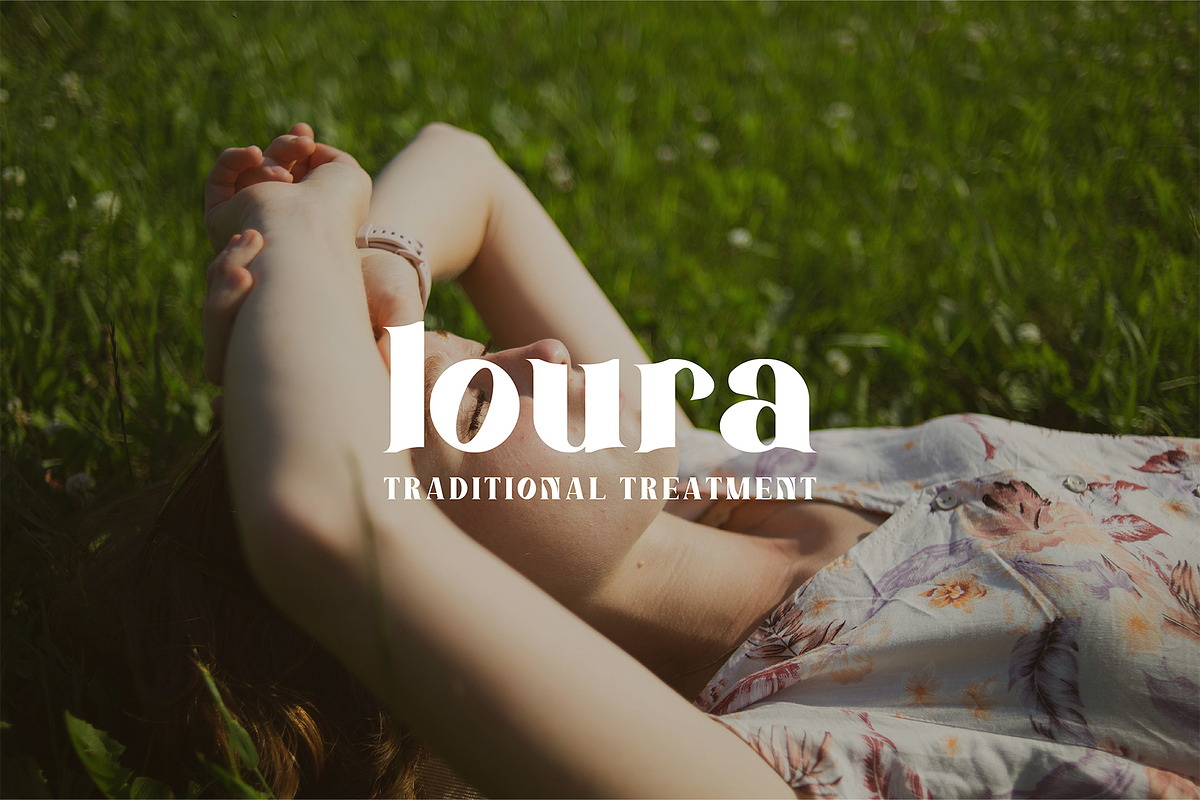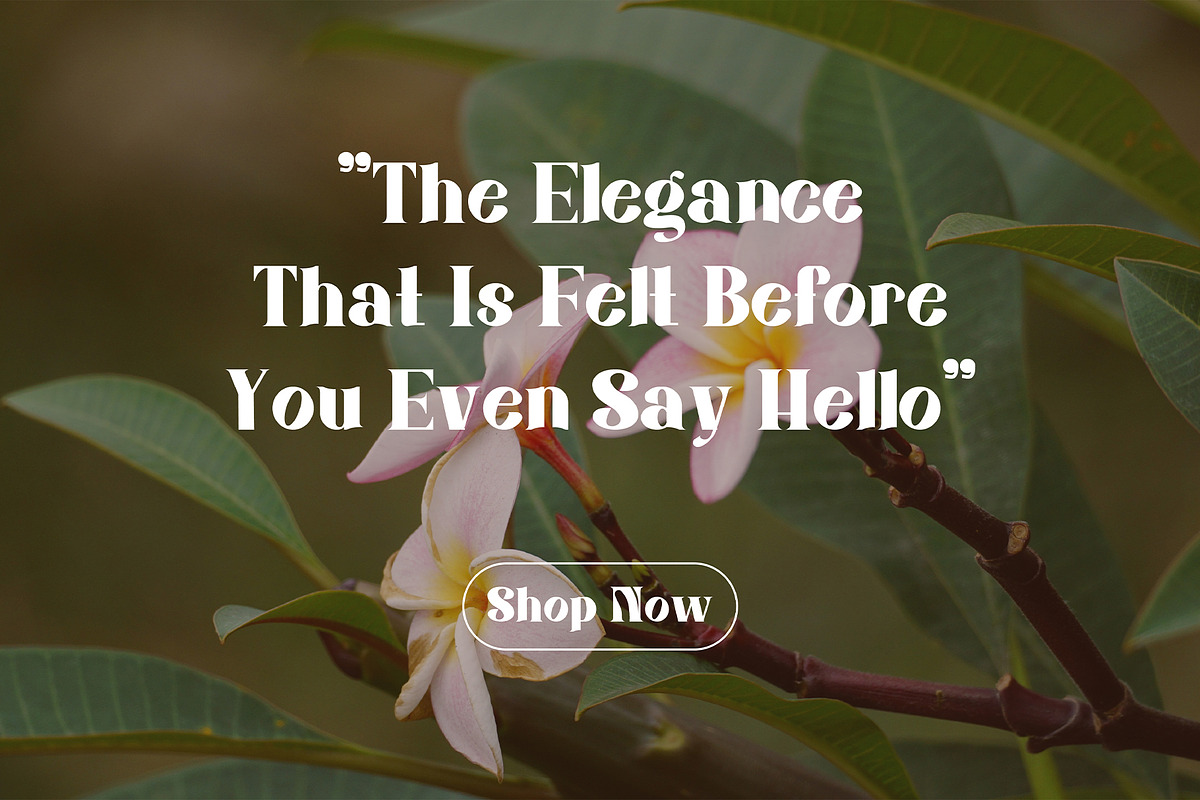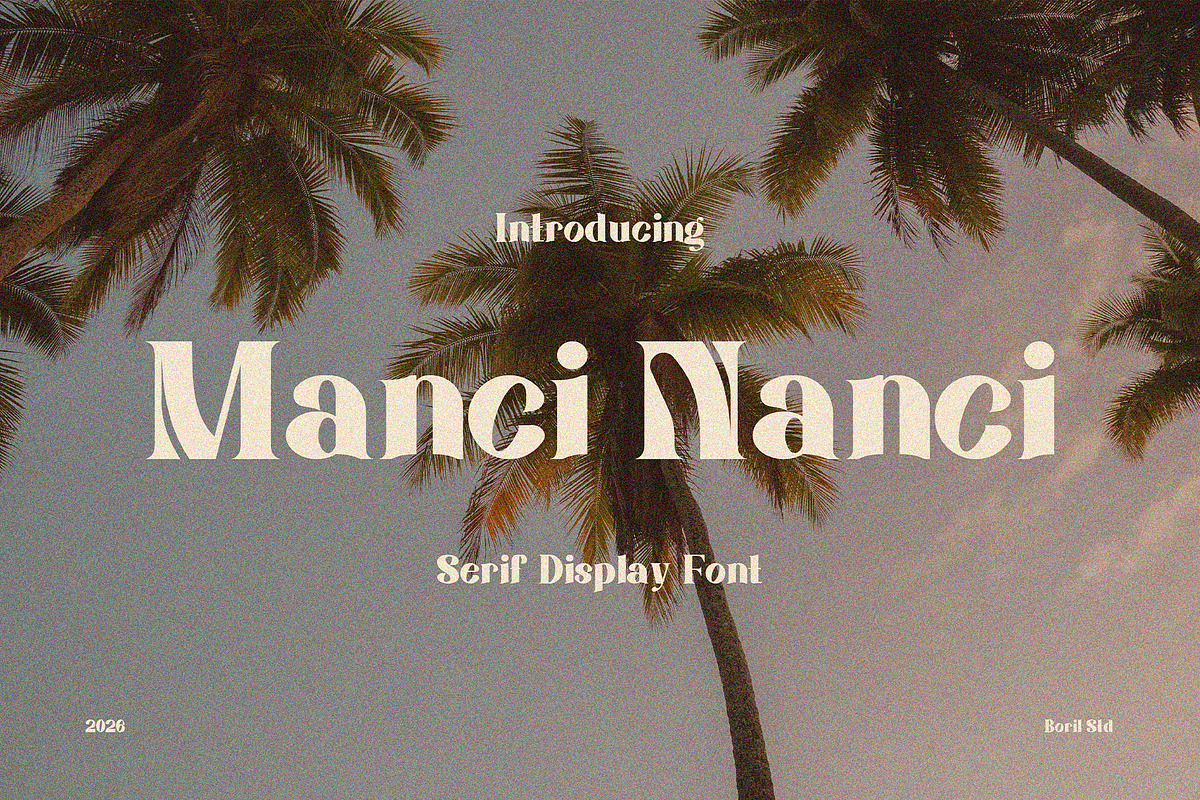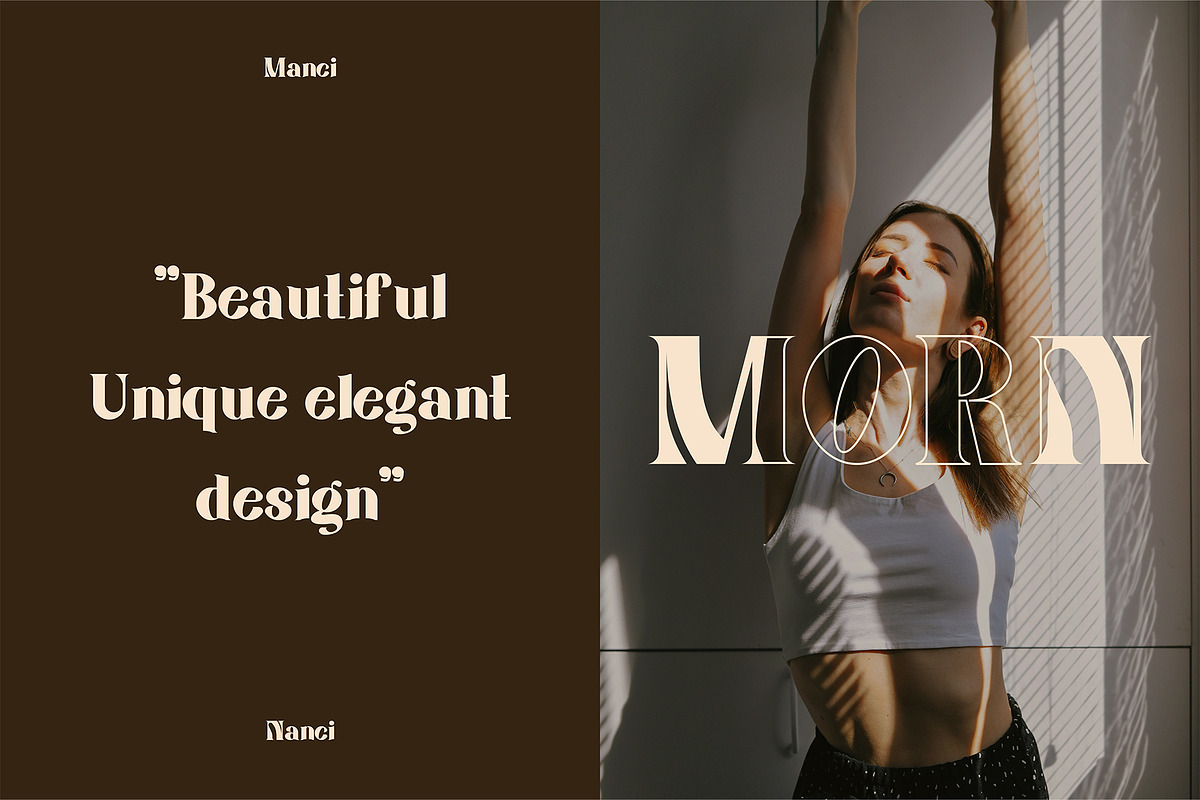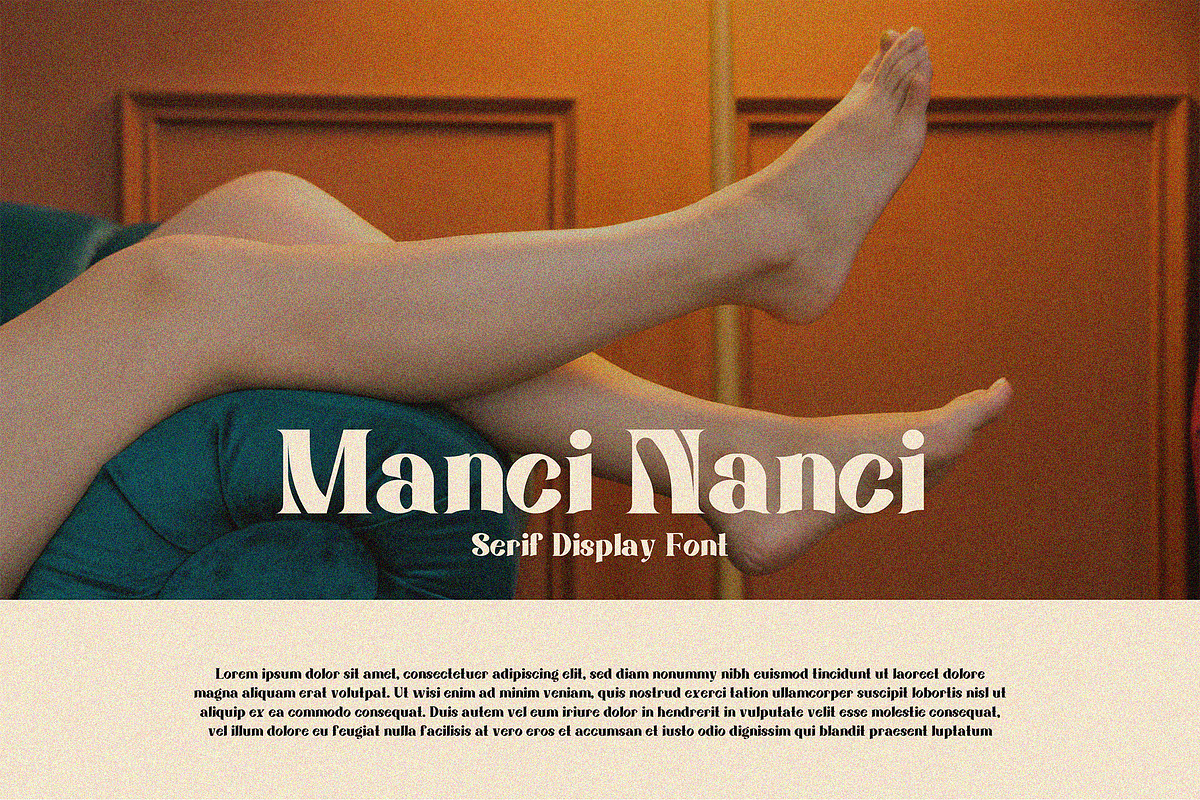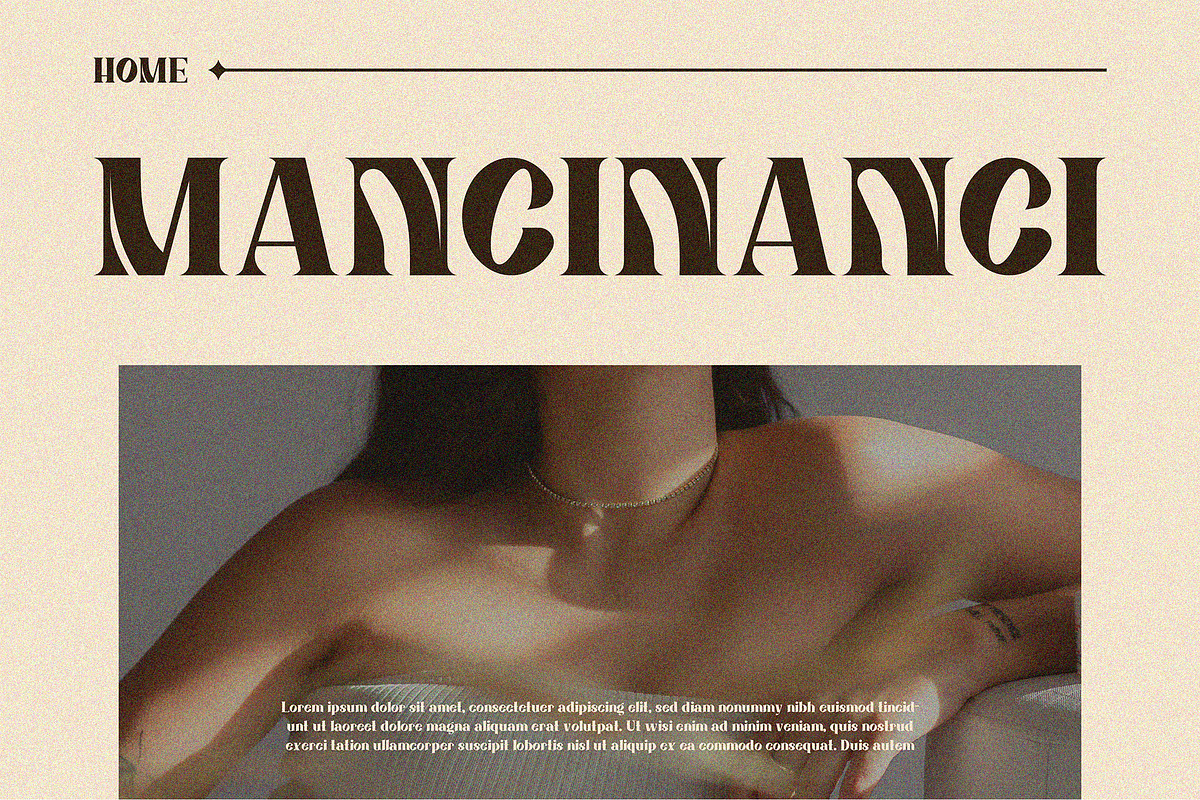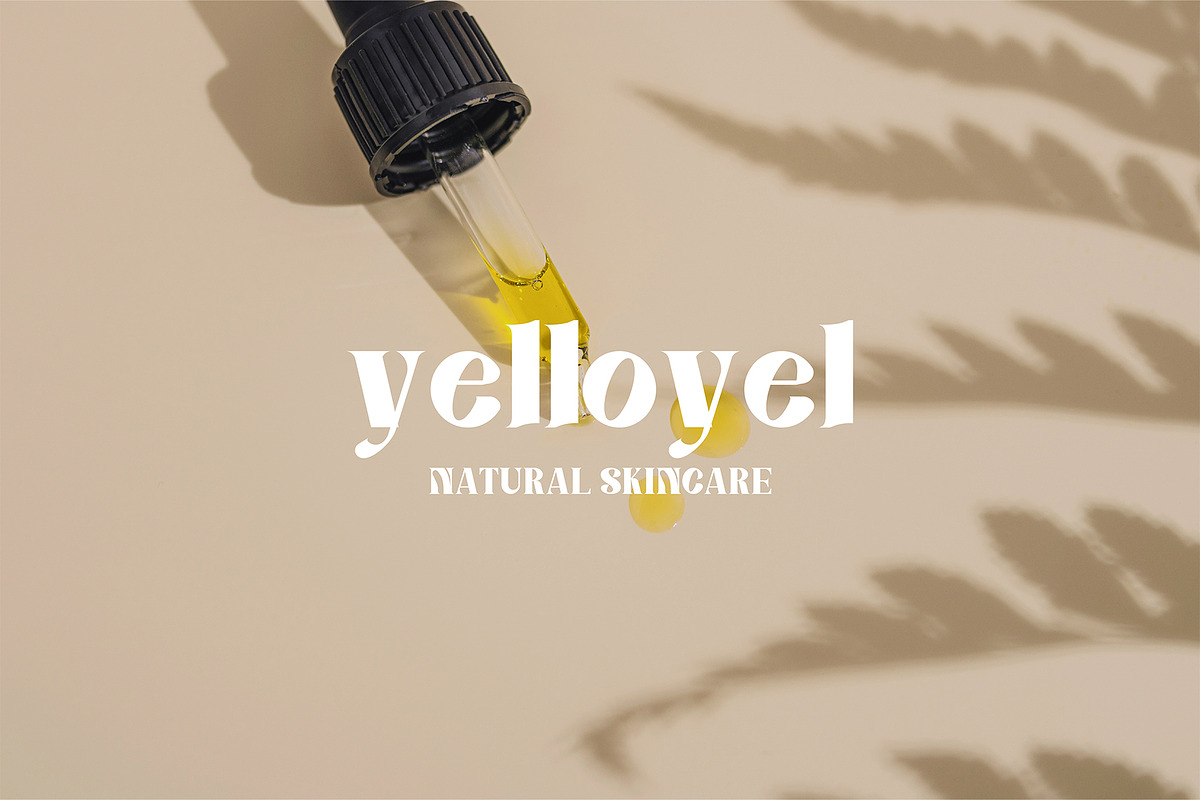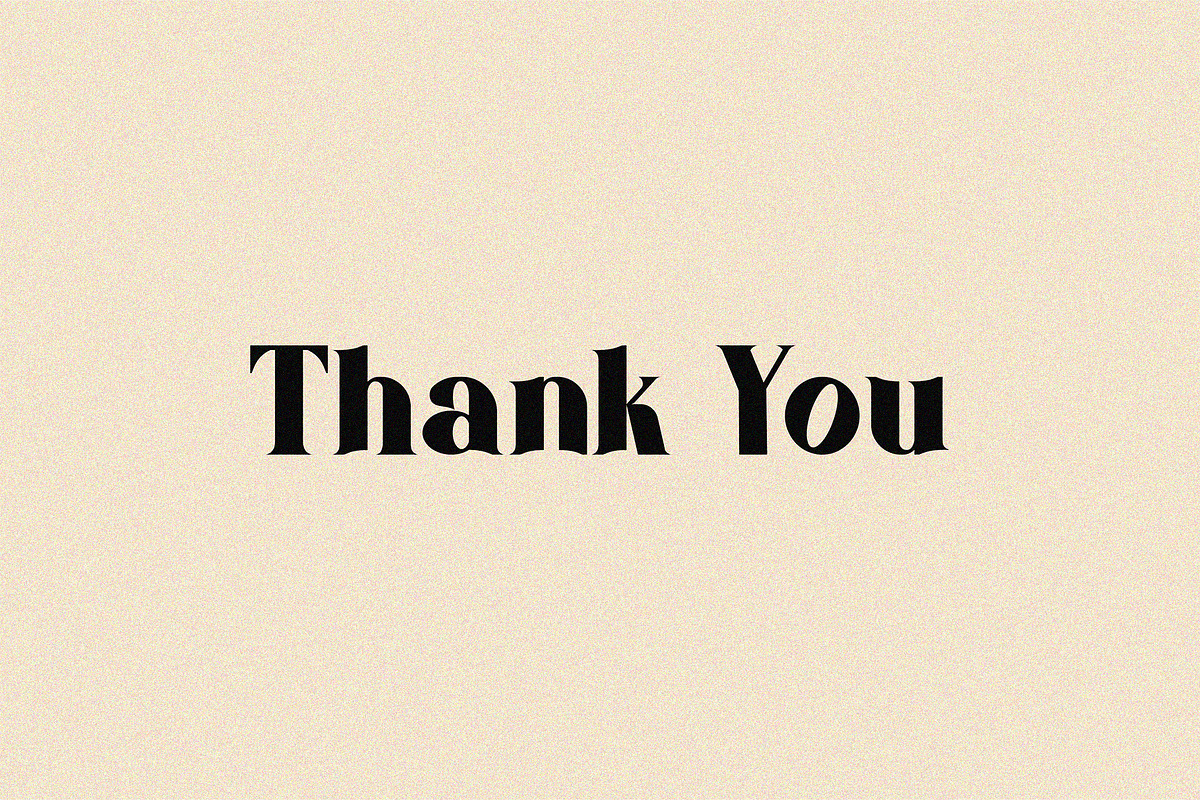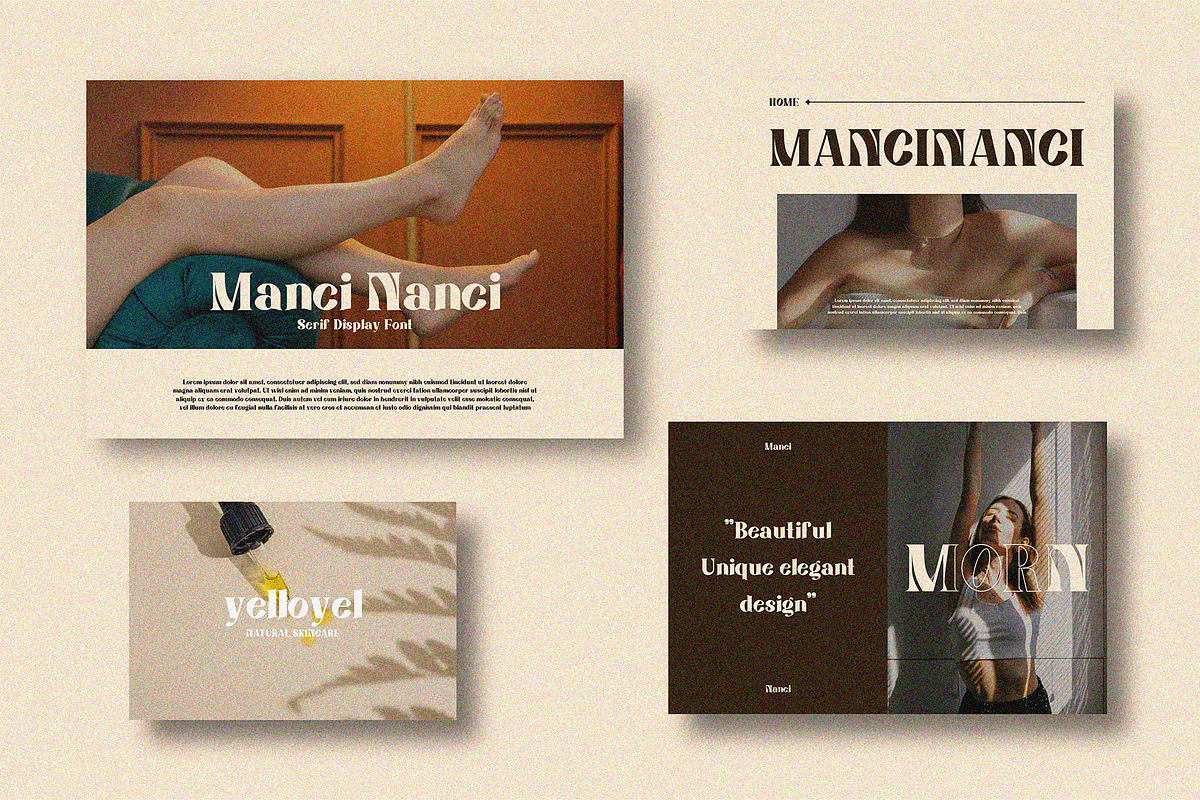
ManciNanci - Serif Font
The ManciNanci font above has a classic retro vintage theme with art deco nuances and decorative serifs.
Style: Classic retro vintage, inspired by typography from the 70s to early 80s.
Letterform: Thick serifs with unique curves and decorative cuts on each character.
Visual characteristics: Elegant, artistic, luxurious, and slightly playful.
Impression: Nostalgic, premium, fashionable, bold, and aesthetic.
Suitable for:
Vintage fashion branding
Cosmetic or perfume logos
Retro posters
Aesthetic cafe or bakery designs
Jazz/disco music covers
Premium editorial and packaging